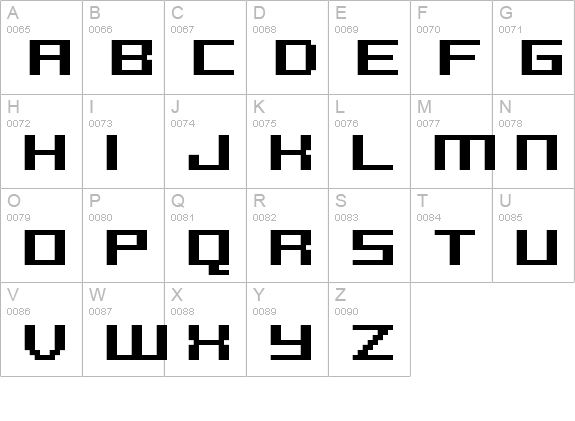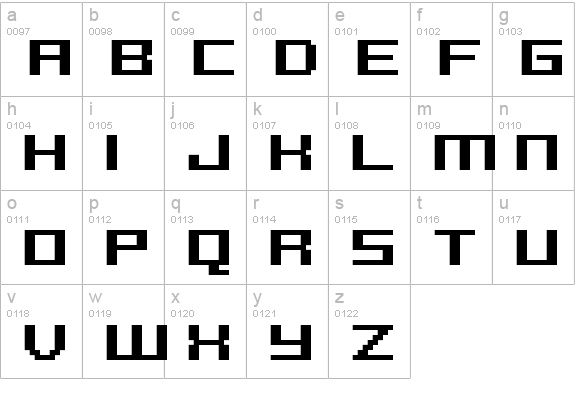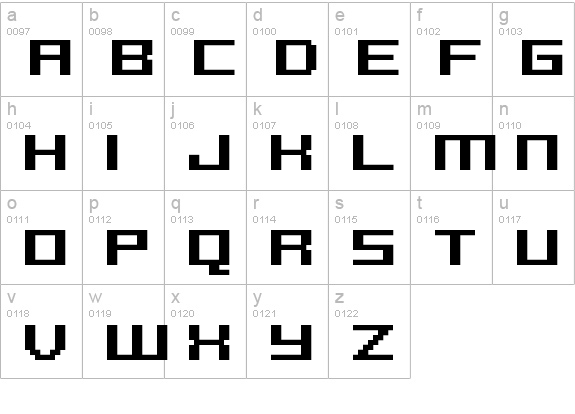
FFF Reaction Bold Font Details
FFF Reaction Bold is a strong, high-contrast variant in the FFF typeface family \xE2\x80\x94 well suited to headlines, attention-grabbing titles, and strong calls-to-action.
Introducing FFF Reaction Bold font, a striking and dynamic typeface that exudes energy and modernity. With its bold and impactful design, this font is perfect for making a statement in headlines, posters, and branding materials. The clean lines and sharp edges of FFF Reaction Bold give it a contemporary and edgy feel, making it stand out in any project. What's even better is that FFF Reaction Bold is available for free download at FontsMarket.com. This means you can easily access this versatile font and use it to elevate your designs without any cost. Don't miss out on the opportunity to add FFF Reaction Bold to your font collection and bring a bold and powerful element to your creative projects. Download it today and start making a bold statement with your typography.